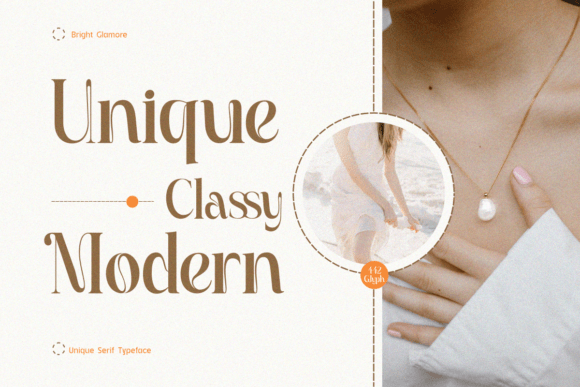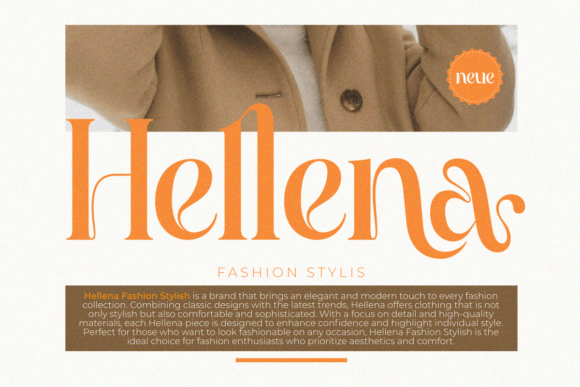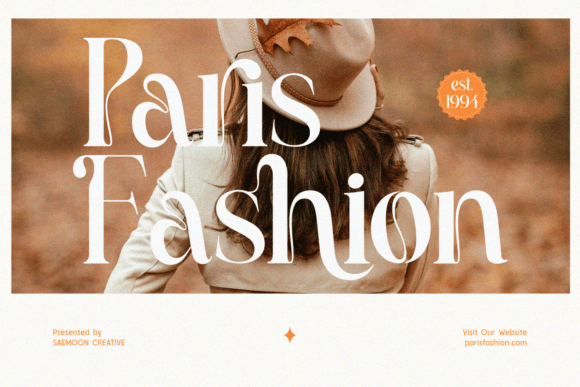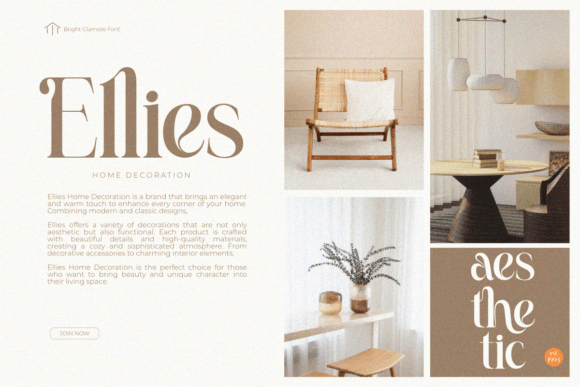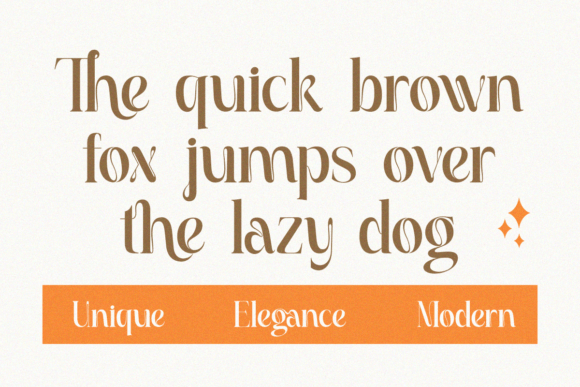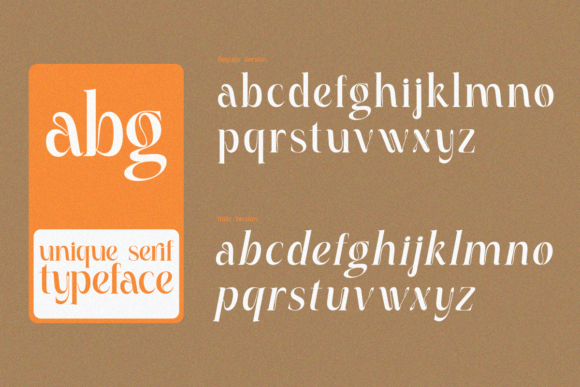
I still remember the countless hours I spent searching for the perfect font for a client’s luxury fashion brand. The brief was simple: create a sophisticated, high-end look that exuded elegance and modernity. But, as we all know, finding that perfect font can be like looking for a needle in a haystack. That’s when I stumbled upon the Bright Glamore Font. ✨
What is Bright Glamore Font?
Bright Glamore is a unique and sophisticated serif typeface designed to bring a sense of luxury, modernity, and timeless elegance to any design project. With its thin serifs, smooth curves, and distinctive details, this font is perfect for fashion branding, editorials, premium packaging, and exclusive typography designs.
Key Features of Bright Glamore Font
- ✔ Unique serif with artistic and distinctive characters
- ✔ Italic version for a more expressive and dynamic look
- ✔ Includes various ligatures & alternates for creative and versatile typography
- ✔ Elegant appearance, ideal for high-end branding
- ✔ Perfect for logos, magazines, wedding invitations, and luxury packaging
- ✔ Supports multiple languages & special characters
My Honest Review
- ✨ The elegant and sophisticated look that adds a touch of luxury to any design
- ✅ The versatility of the font, with various ligatures and alternates to experiment with
- ✅ The italic version, which adds a dynamic and expressive touch to the design
- ✨ The font’s support for multiple languages and special characters
While Bright Glamore is an excellent font, there are a few minor quirks to be aware of: 🤔
- ⚠️ The font’s thin serifs may not be suitable for very small font sizes or low-resolution designs
- ⚠️ Some users may find the font’s uniqueness takes some getting used to, especially when compared to more traditional serif fonts
The Story Behind Bright Glamore Font
Bright Glamore was designed with the goal of creating a unique and sophisticated serif typeface that embodies luxury, modernity, and timeless elegance. The designer’s inspiration came from the world of high-end fashion and luxury branding, where elegance and refinement are paramount. The result is a font that is both classic and modern, perfect for designers looking to create exclusive, stylish, and sophisticated typography.
Q: Is Bright Glamore Font suitable for body text?
A: While Bright Glamore is an elegant and sophisticated font, its thin serifs may not be suitable for very long body text. It’s best used for headlines, titles, and short paragraphs.